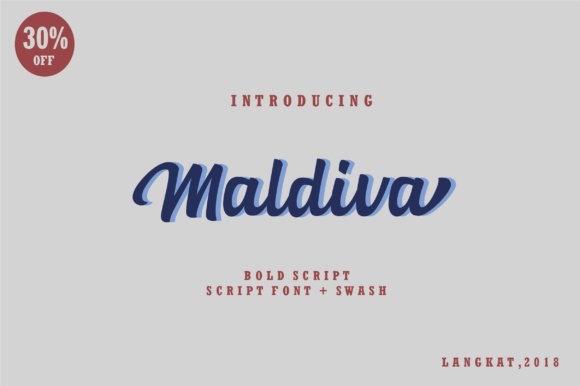
Introducing Maldiva Script Font – a font that will make your designs stand out with its bold and captivating letters. Designed by Faras Dina, this exquisite script font exudes a personal touch, adding a dash of charm to your creative endeavors.
Let Maldiva Script Font ignite your imagination and transform your words into captivating masterpieces. Its bold strokes command attention, drawing the reader's eyes to your creations like a magnet. With its striking presence, this font empowers you to express your individuality and leave a lasting impression.
Embrace the beauty of customization and let Maldiva Script Font paint your designs with a vibrant palette of emotions. Its versatility empowers you to craft stunning logos, eye-catching posters, elegant invitations, and enchanting social media graphics that captivate your audience.
Indulge in the delightful dance of letters as you weave your words into captivating stories with Maldiva Script Font. Its bold character will make your designs shine, adding a touch of sophistication and allure that will leave your audience spellbound.